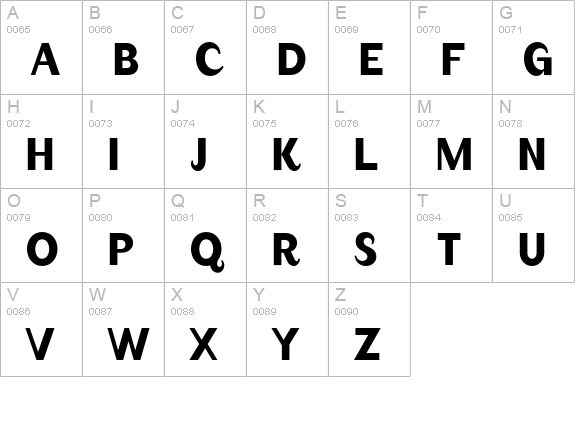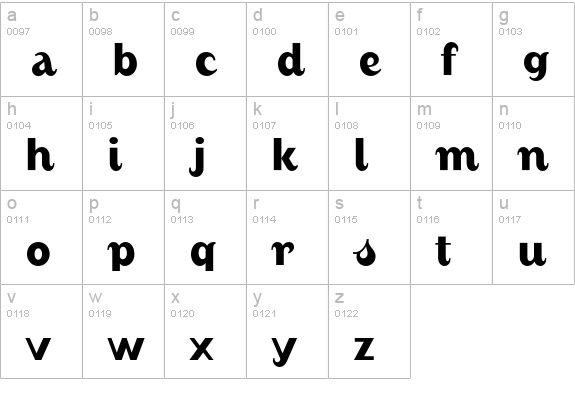
August-MediumAlternate font is a stylish and versatile typeface that adds a touch of elegance to any design project. With its medium weight and unique alternate characters, this font is perfect for creating eye-catching headlines, logos, and branding materials. The tall x-height and subtle contrast between thick and thin strokes give August-MediumAlternate font a modern and sophisticated look. Best of all, August-MediumAlternate font is available for free download at FontsMarket.com. Whether you're a professional designer or a hobbyist looking to elevate your creative projects, this font is a valuable addition to your typography collection. Don't miss out on the opportunity to enhance your designs with the sleek and contemporary August-MediumAlternate font, now conveniently accessible for free at FontsMarket.com.